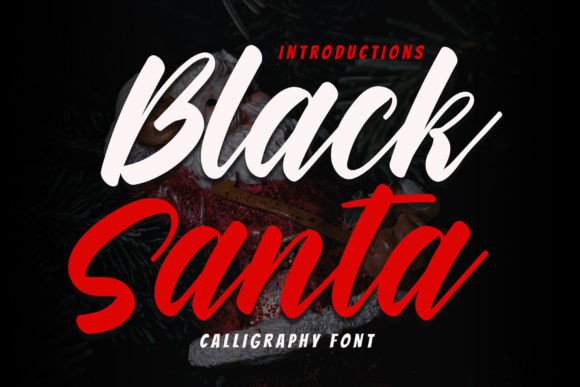
Journey into the realm of captivating typography with Black Santa, a script font family exuding charm and elegance. Its graceful curves and whimsical strokes possess an enchanting allure, reminiscent of a handwritten masterpiece. Step into a world where your creative visions take flight, and your designs dance with newfound vitality.
Black Santa's versatility knows no bounds. It seamlessly adorns wedding invitations, imbuing them with a touch of heartfelt warmth. Its presence graces thank-you cards, transforming them into expressions of genuine gratitude. Let your words flow effortlessly onto greeting cards, carrying messages of love, joy, and celebration. Logos and business cards adorned with Black Santa exude a sense of sophistication and professionalism, leaving a lasting impression on clients and colleagues alike.
Unleash your creativity and let Black Santa guide you through a realm of endless possibilities. From posters and flyers that capture attention to social media posts that spark engagement, Black Santa amplifies your message, making it resonate with audiences. Its timeless beauty effortlessly elevates the aesthetics of websites, adding a touch of elegance that captivates visitors.
Embrace Black Santa, and embark on a creative odyssey, where your designs flourish and your imagination runs wild. Let its enchanting charm weave its way into your projects, transforming them into masterpieces that captivate and inspire. Immerse yourself in the world of Black Santa, and let your creativity soar.